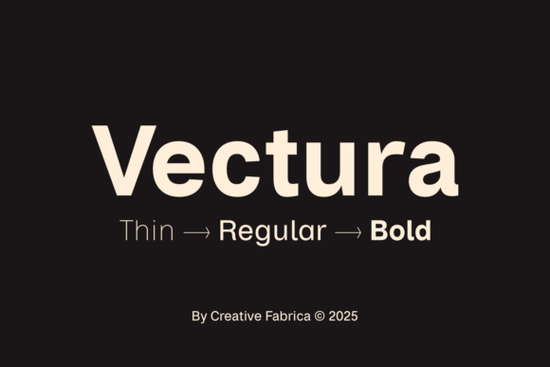
If you're looking for a clean, versatile sans-serif font that works across print and digital projects, Vectura Font might be exactly what you need. Inspired by the timeless simplicity of Helvetica, Vectura brings a refined, modern feel while offering six distinct styles Thin, Regular, Bold, and their italic versions. Whether you're designing a logo, building a website, or creating print-on-demand products, this typeface gives you the flexibility to go from minimal and elegant to bold and impactful without switching fonts.
Is Vectura a good choice for branding and logos?
Absolutely. Vectura’s letterforms are clean, balanced, and highly readable, which makes it a reliable option for brand identities. The subtle alternates add a touch of personality without breaking the minimalist look. If you’re working on a corporate logo or a small business brand, this font can help you communicate professionalism and clarity. For an even bolder brand presence, you could pair it with Bold Dream, another sans-serif that holds its own in headlines and logos.
How does Vectura compare to other modern sans-serif fonts?
Vectura shares the same DNA as classic geometric sans-serifs but feels more approachable thanks to its slightly softer curves. Where some fonts feel too rigid or cold, Vectura maintains a friendly warmth. That makes it particularly useful for editorial layouts or web typography where readability is key. If you enjoy the style of Vectura but want something with more character, take a look at Six Sound Font another modern sans with a playful edge. For a strictly geometric option, Glasgow Grotesk offers a different take on minimalist type.
What styles and weights does Vectura include?
Vectura comes in six weights:
- Thin – Light and airy, great for subtle captions or elegant display.
- Regular – The all-purpose workhorse for body text and UI.
- Bold – Strong and confident for headlines or call-to-action buttons.
- Thin Italic – Adds a graceful slant to light text.
- Regular Italic – Perfect for quotations or emphasis.
- Bold Italic – Combines weight with movement for dynamic headers.
Having these options means you can maintain a consistent look across different hierarchy levels without buying multiple font families. This is especially useful for print-on-demand sellers who need to create product mockups with varying text sizes.
What projects work best with Vectura?
Because of its clean shapes and excellent readability, Vectura fits into many real-world scenarios:
- Branding & identity – Business cards, stationery, and logo mockups.
- Editorial design – Magazines, newsletters, and white papers.
- Web typography – Blog headers, landing pages, and UI elements.
- Print-on-demand – T-shirts, mugs, posters, and tote bags.
- Product packaging – Labels or boxes that need a clean, trustworthy look.
If your project demands a corporate feel without being boring, Vectura is a safe bet. And if you ever need a dose of extra character, consider combining it with a hand-lettered script or a textured display font.
- Test in context – Try the font at different sizes and on different backgrounds. Vectura’s thin weight might need extra tracking for small sizes.